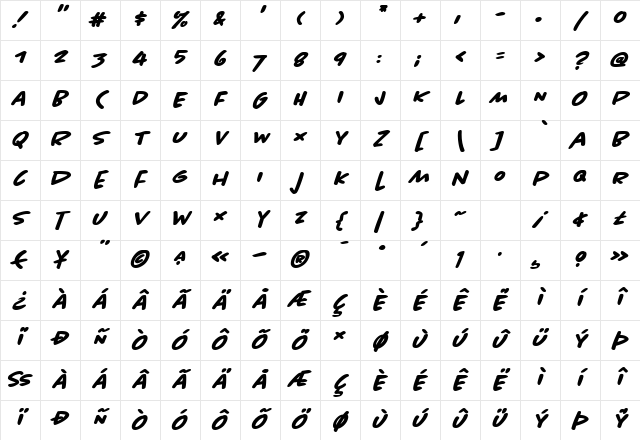
Chantal BoldItalic Free Font
Chantal BoldItalic
Design Context for Chantal
Chantal is a composed and adaptable typeface that performs quietly and consistently across a wide range of design contexts. The slanted form adds forward momentum and visual energy. Its bold stroke weight gives it real presence on the page.